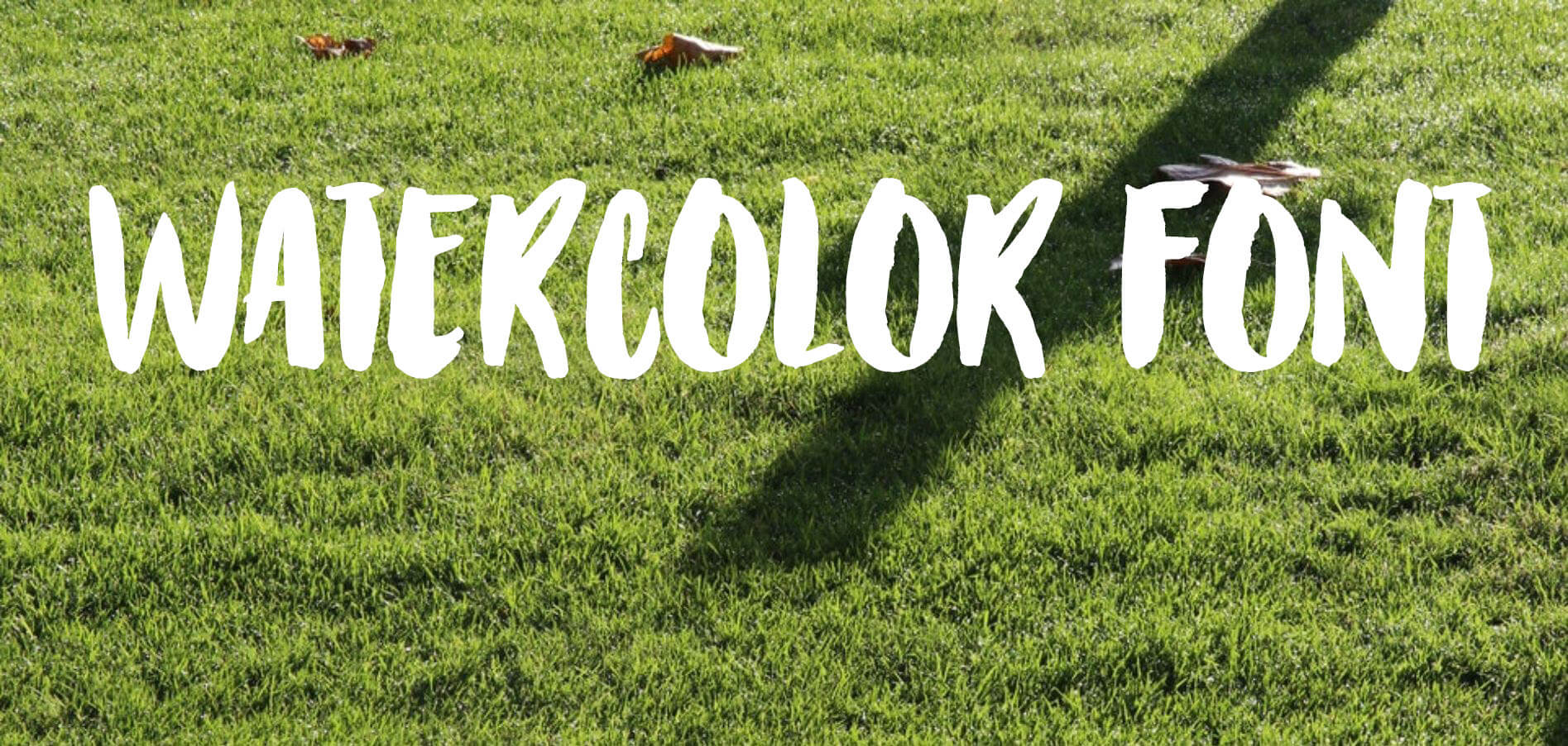
Watercolor Font is an extraordinary calligraphy typeface that was designed by a notable designer named PremiereGraphics. This font contains stylish 120 brush-lettered characters, which are uppercase, lowercase, numbers, punctuations, symbols, icons, and included many special characters. You can use these all stylish characters in its free regular version. We are providing a free version of this typeface and you can get access through our download sections.
The character’s look of this typeface is hand-brushed and it is the most considered font for certificate and card design. The cat has a hat font is the closes font to this excellent typeface. There are many similar fonts to this font but Conquer brush font is the most similar font to this font.
Reason to Use watercolor Font
Calligraphy font is the most suitable font for any type of design and you can make such astonishing logo designs, book covers, business cards, gift cards, leaflets, T-shirt designs, Mug designs, movie posters, gaming, banners, magazine, and newspaper purposes, certificate designs, product packaging, brand projects, and many related places.
It can perfectly use for headlines, utility bills, daily reports, hotel/casino/building names, documentations purposes, product titling, and many more.
What Type of Font Is Watercolor Font?
This is belonging to the Calligraphy typeface that comes with extended features and the designer of this high-quality font is PremiereGraphics.
Is there any alternative font to the Watercolor Font?
Yes, of course, there are many alternative fonts to this font like Wellfont Brush font, Beauty Sunflower Font, Reckless Font, The Cat Has a Hat Font, Gallow Tree Font, and plenty of more.
Where Watercolor Font Can Be Used?
This font is a highly used font for certificates and cards design purposes. You can also use this typeface for your professional signatures as well as logo designs, covers, banners, publishing and promotional tasks, posters, headings, and titles.